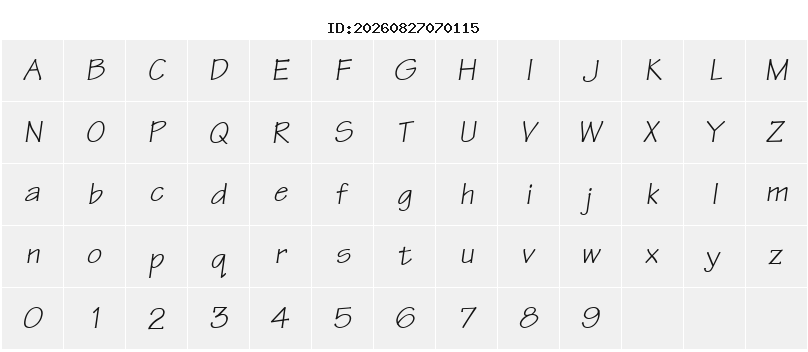
505-CAI978 Preview
About 505-CAI978.ttf
505-CAI978.ttf is a modern, elegant sans-serif font designed for ultimate readability and visual harmony. Perfect for branding, headlines, web design, and print materials.